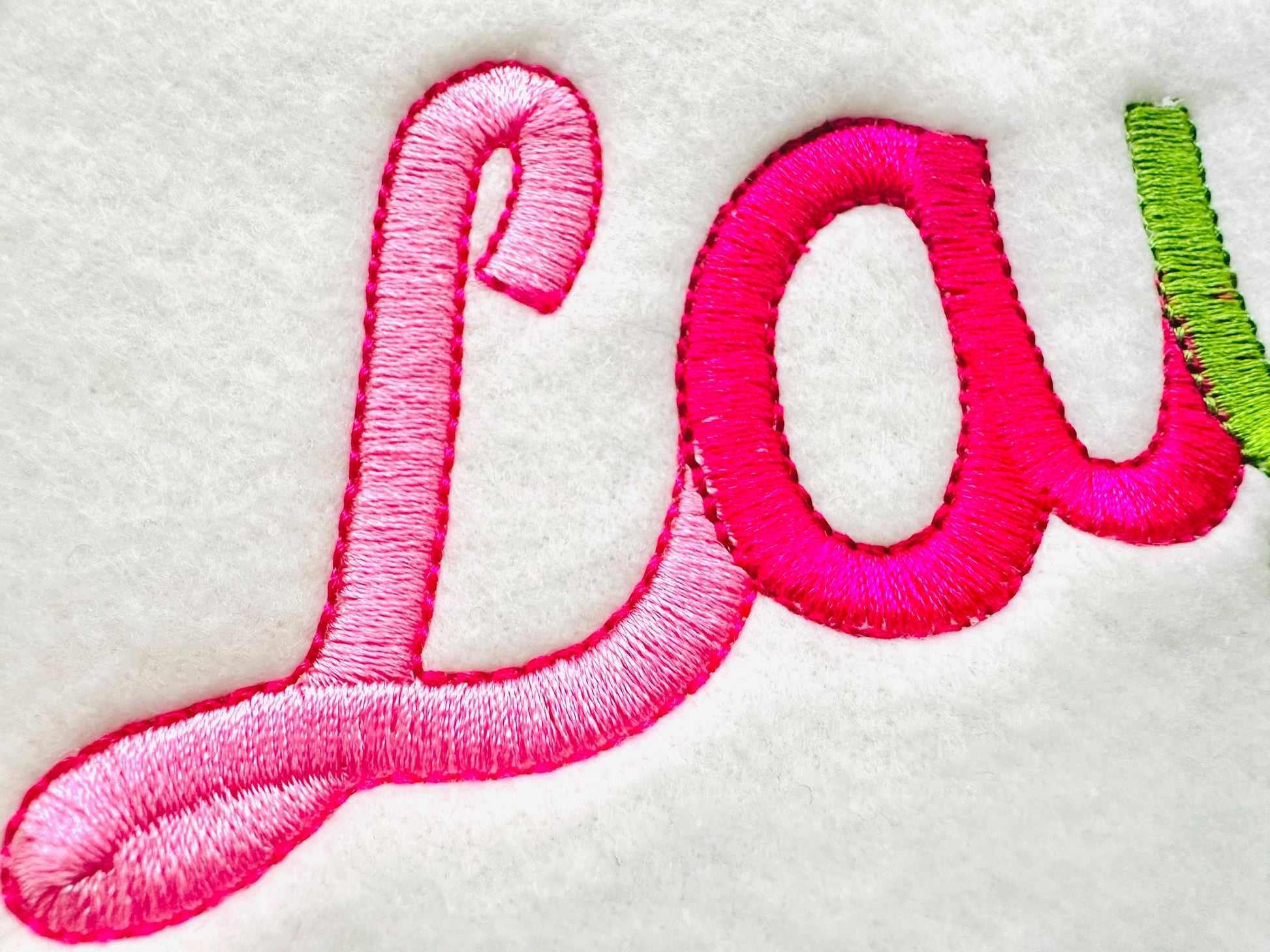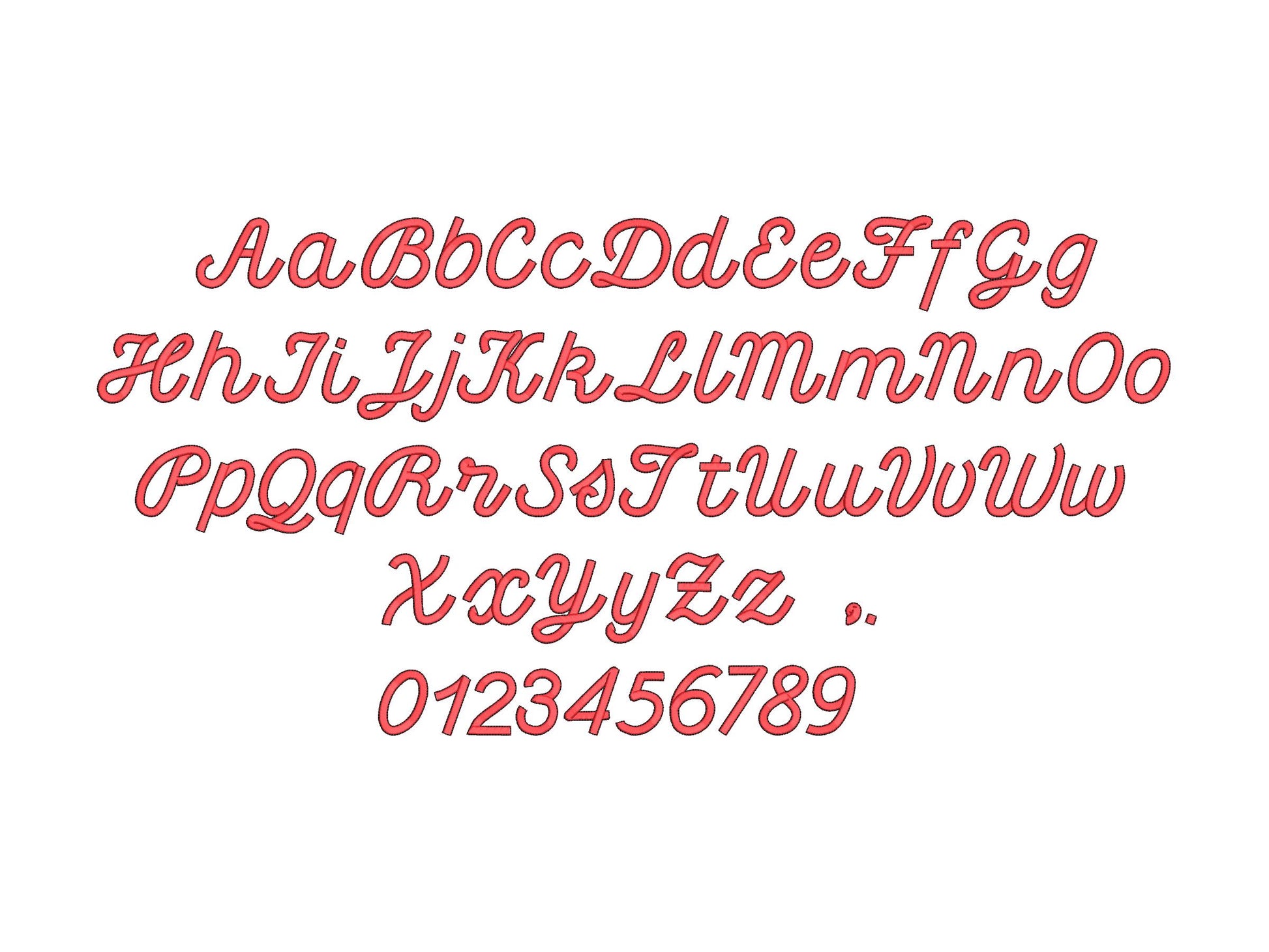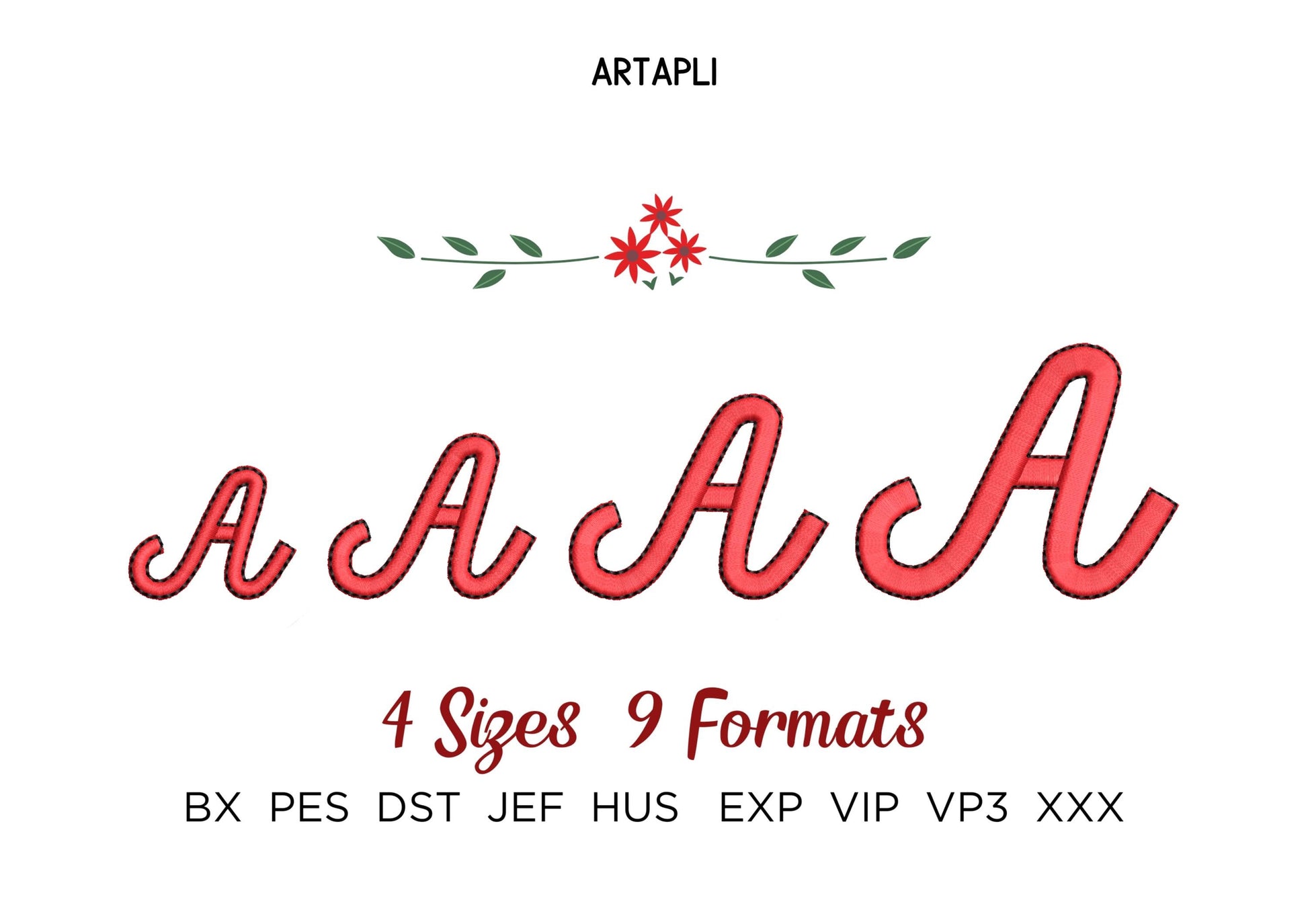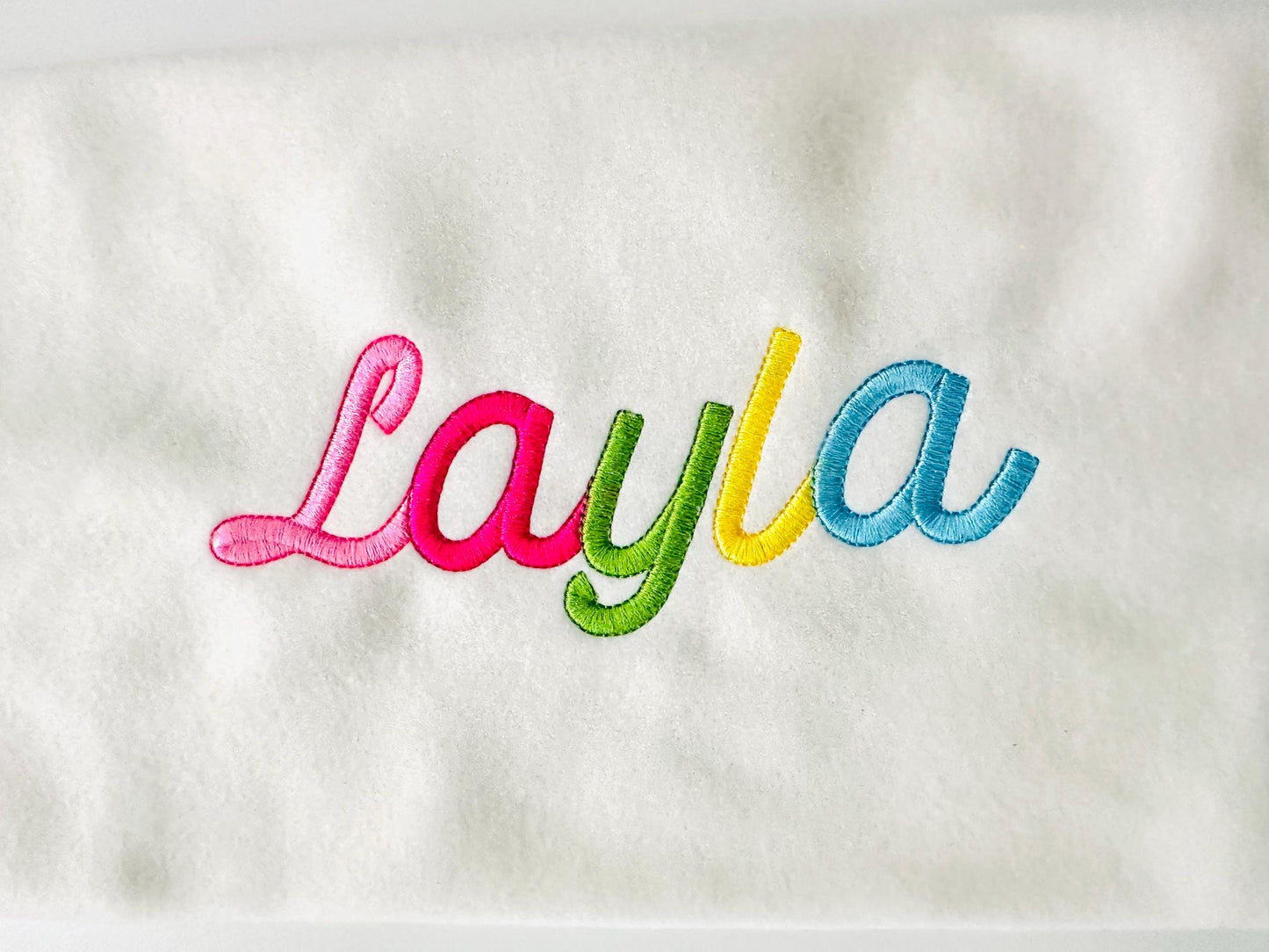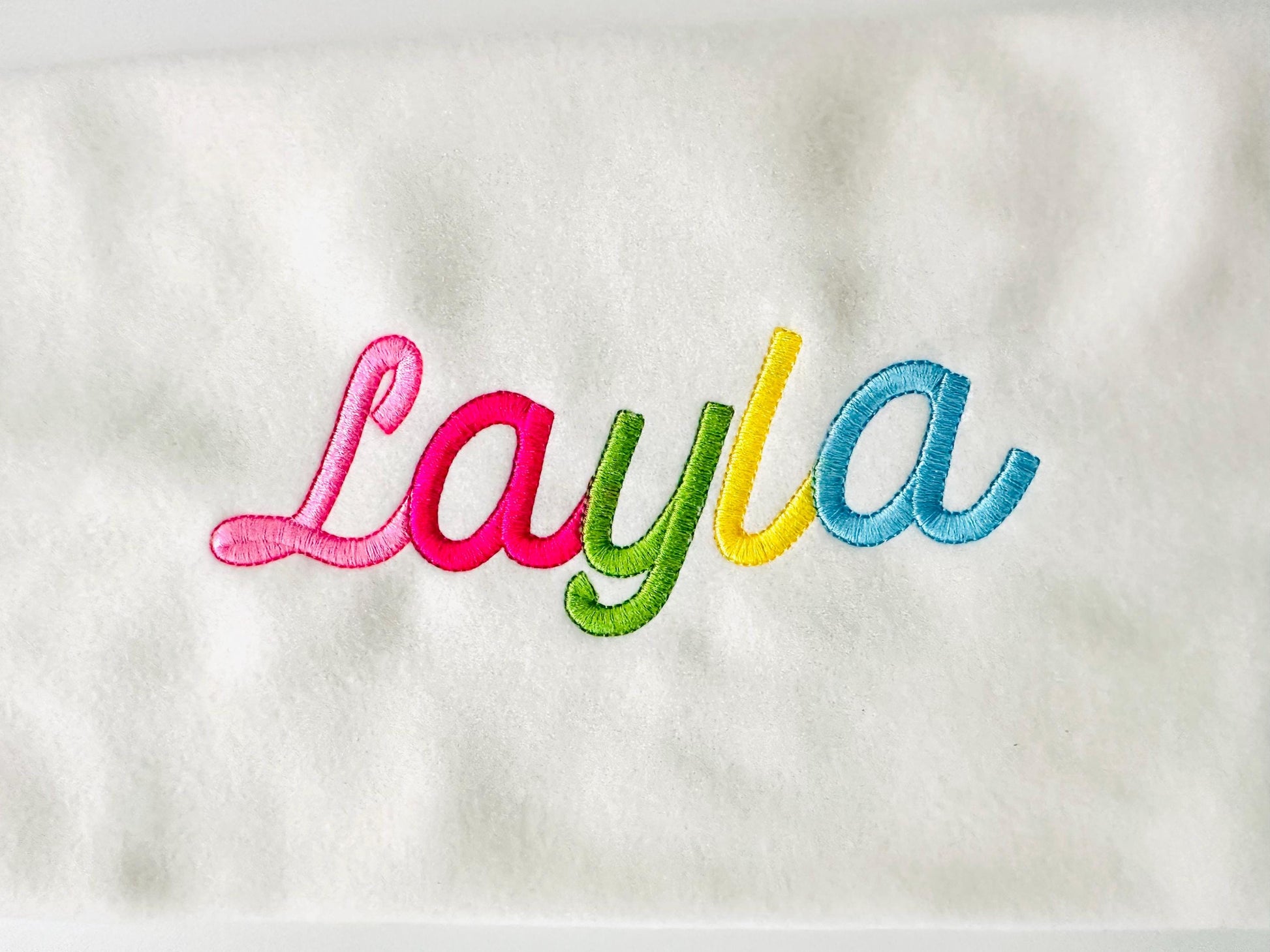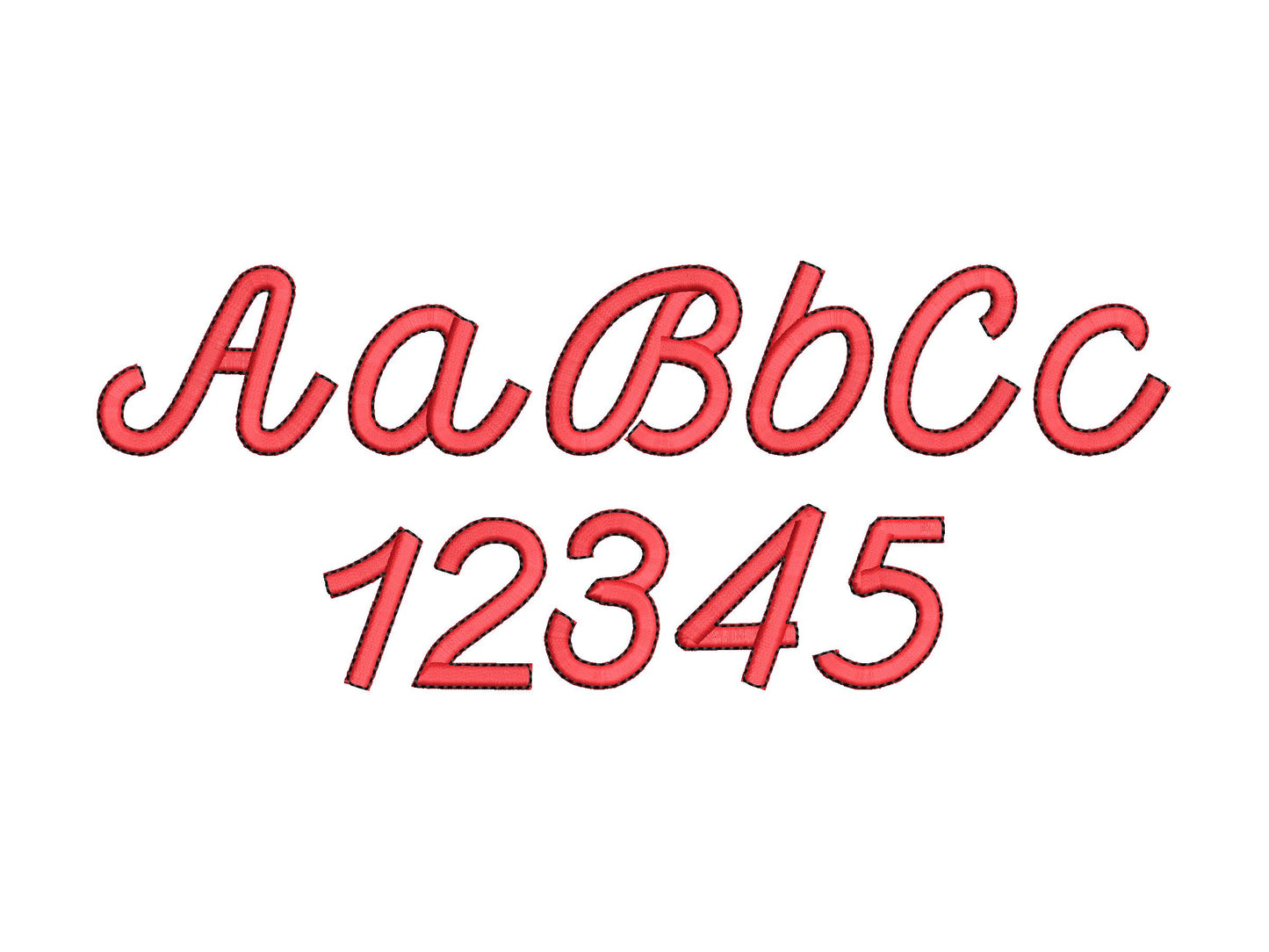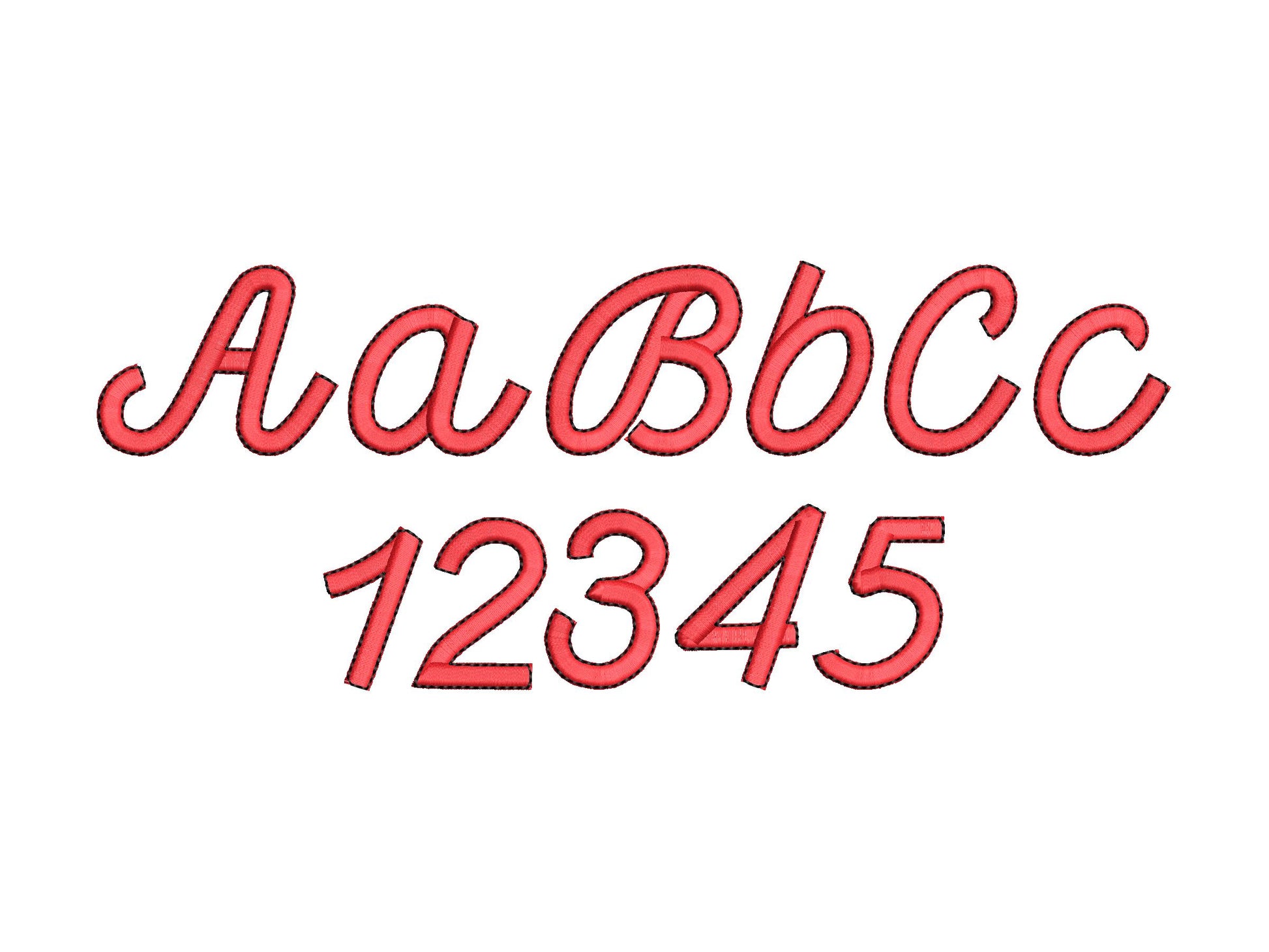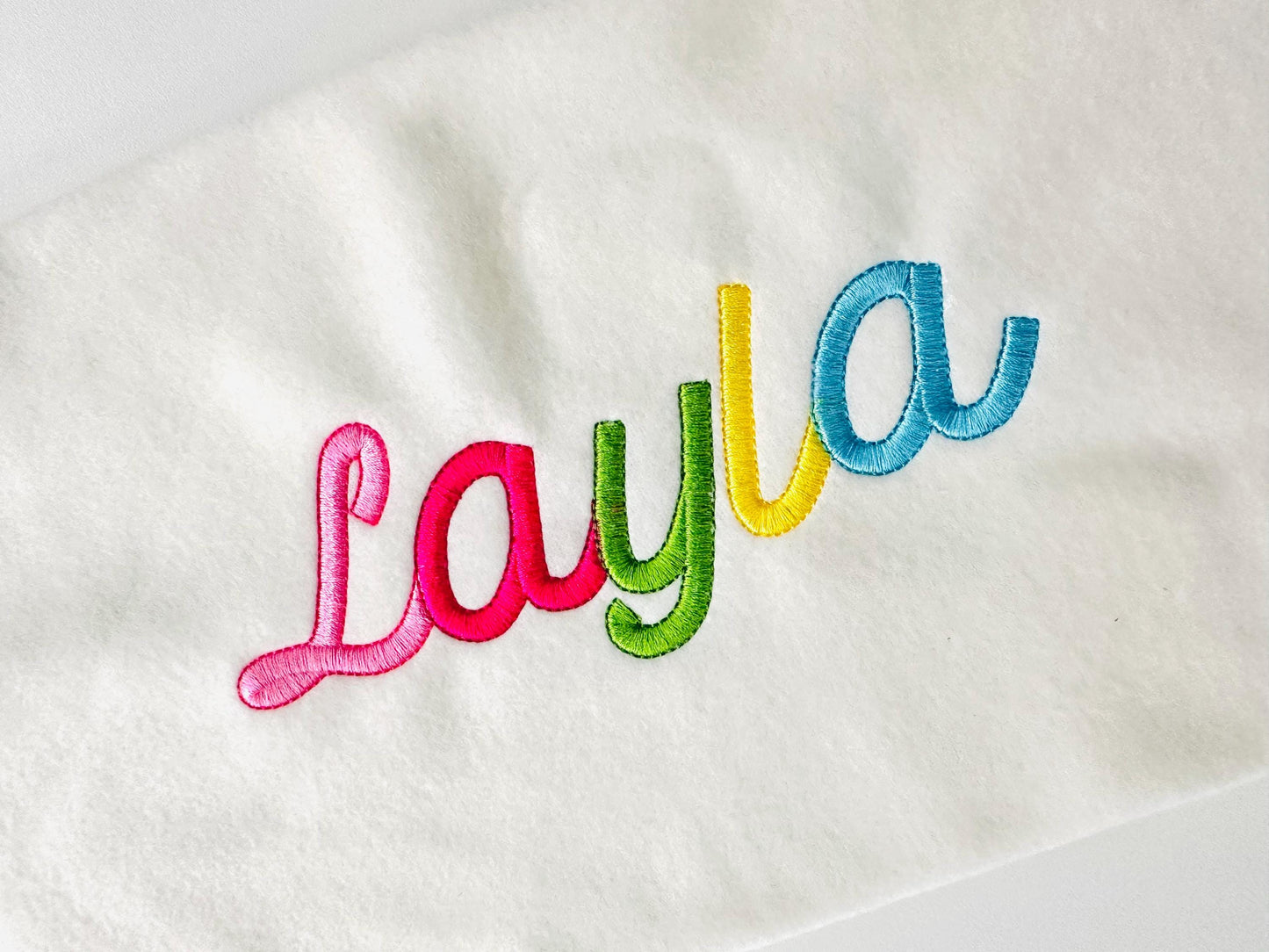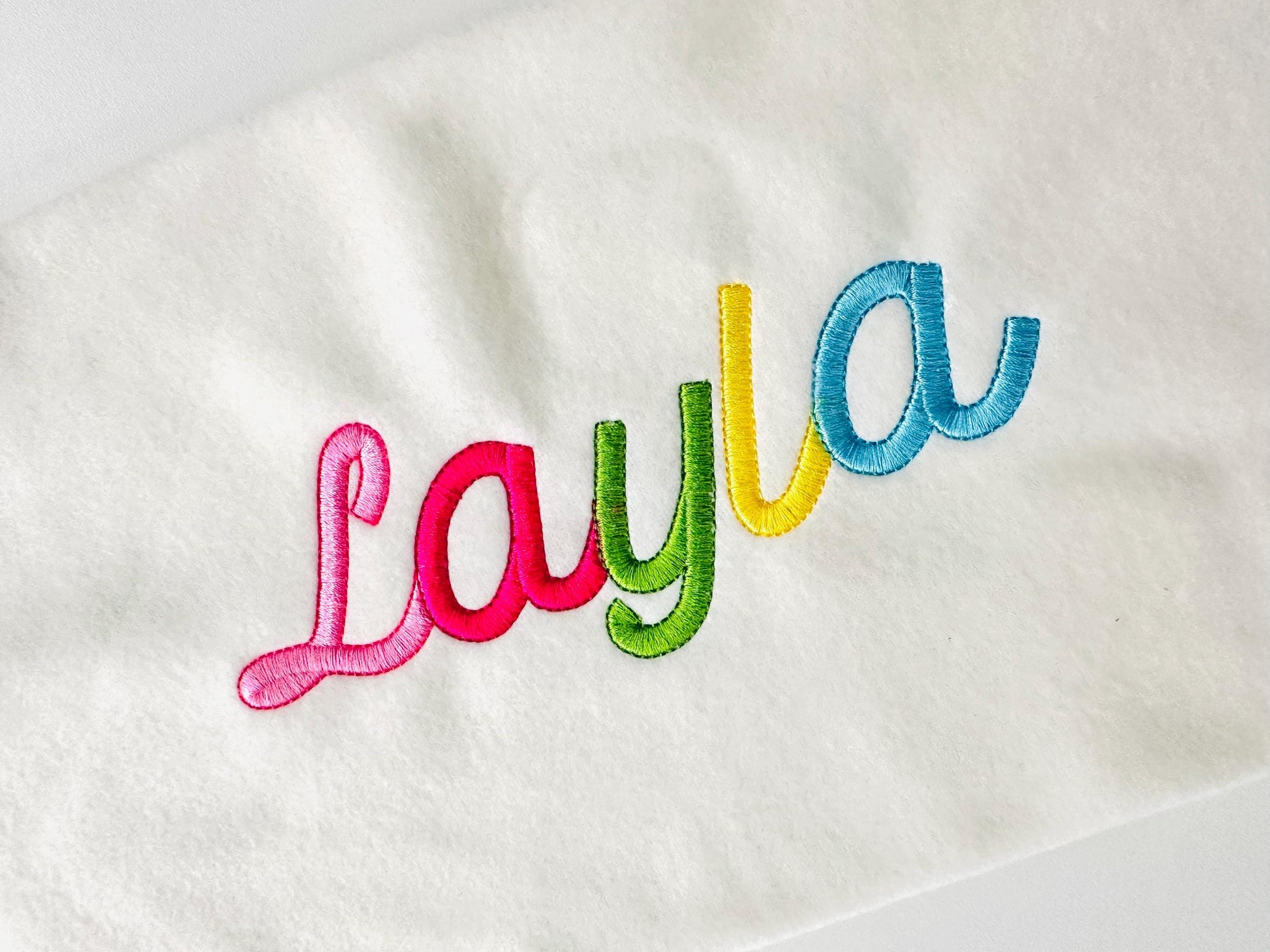
Or click to open the linkA cursive handwritten script in satin stitch with a bean stitch outline. Lovely for names and monograms on shirts, bibs, towels and gifts.
Uppercase and lowercase letters, numbers 0 to 9, a comma and a period. Four sizes: 1, 1.3, 1.7 and 2.1 inches.